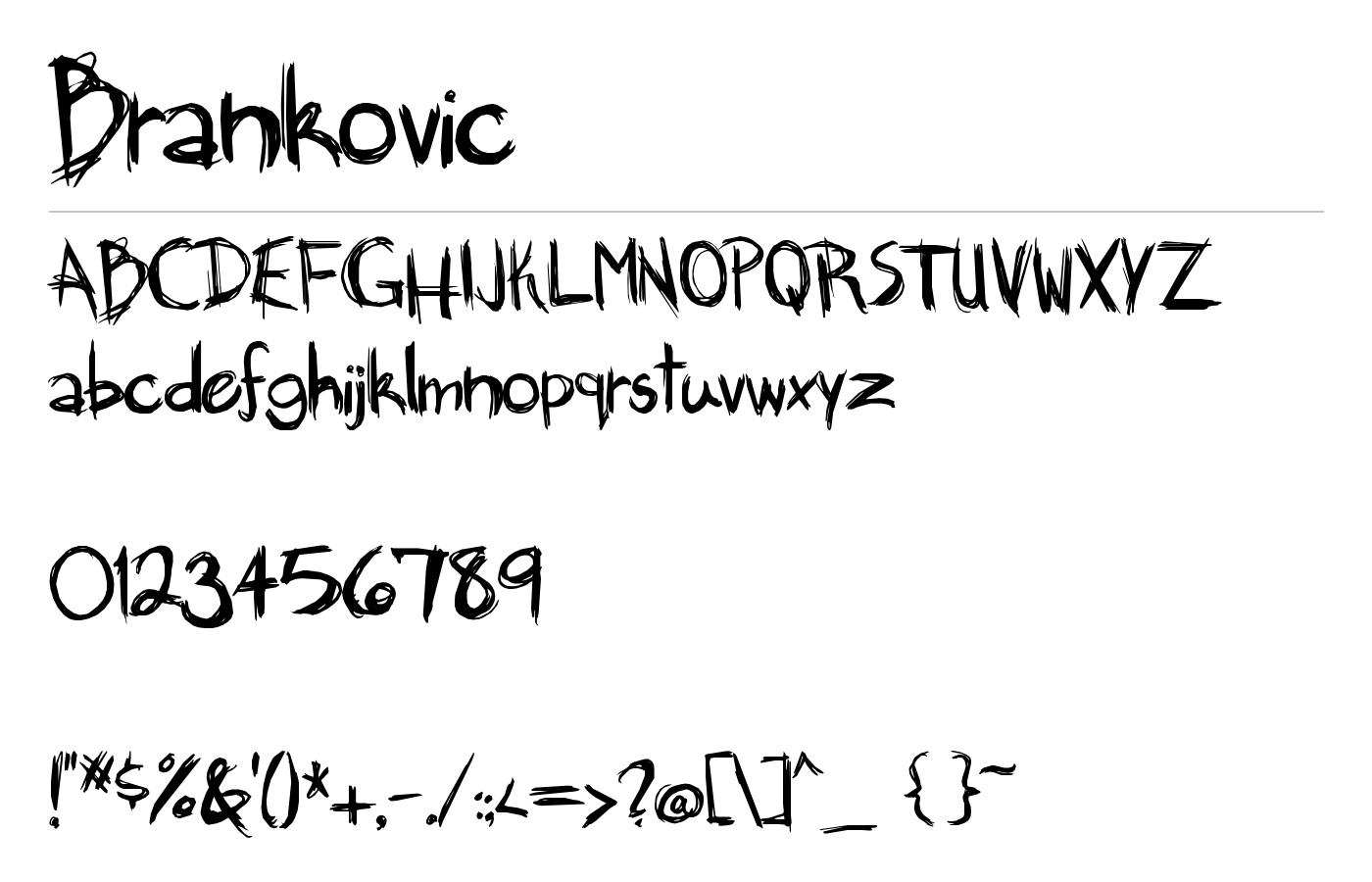
Brankovic is a striking handwritten font with a rough, textured appearance that gives it an edgy, expressive personality. Its irregular strokes and uneven letterforms create a raw, dynamic vibe perfect for creative projects seeking a bold, unconventional look. This font works well in posters, logos, and artistic branding where a sense of individuality and energetic style is desired.
Brankovic Font
About Brankovic Font
| Font family | Brankovic Font |